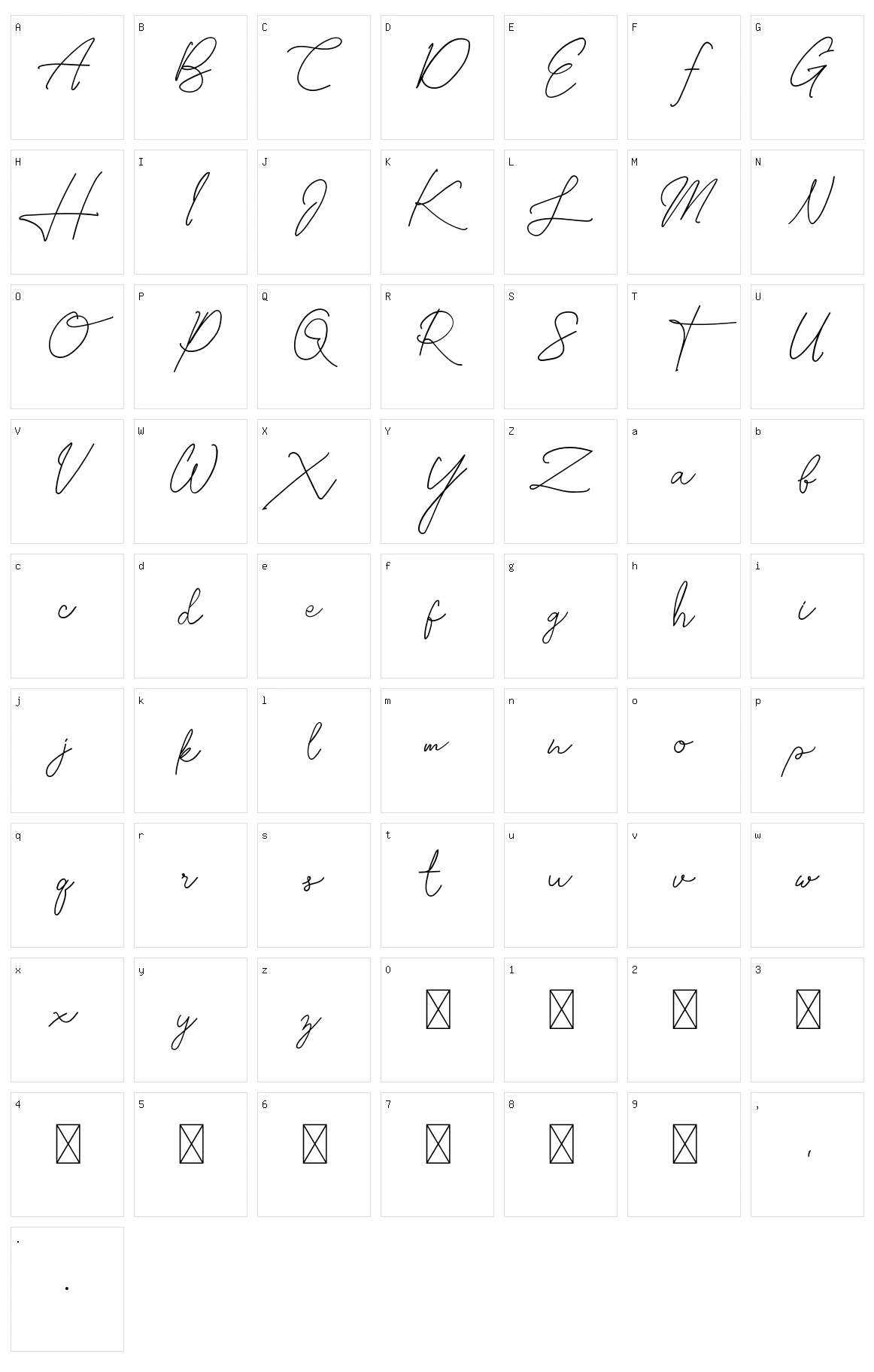
The free font Oakline is carefully designed by otpirustype studio, showcasing a thoughtful balance of creativity and usability and falls under the Script font style. When you download the ZIP file, it contains only 1514.86 KB of font files, making it lightweight and quick to download. Please review the license details below to understand permitted usage and distribution rights. If license information is not available, we recommend using this font for personal projects only or contacting the author directly for commercial usage permissions.